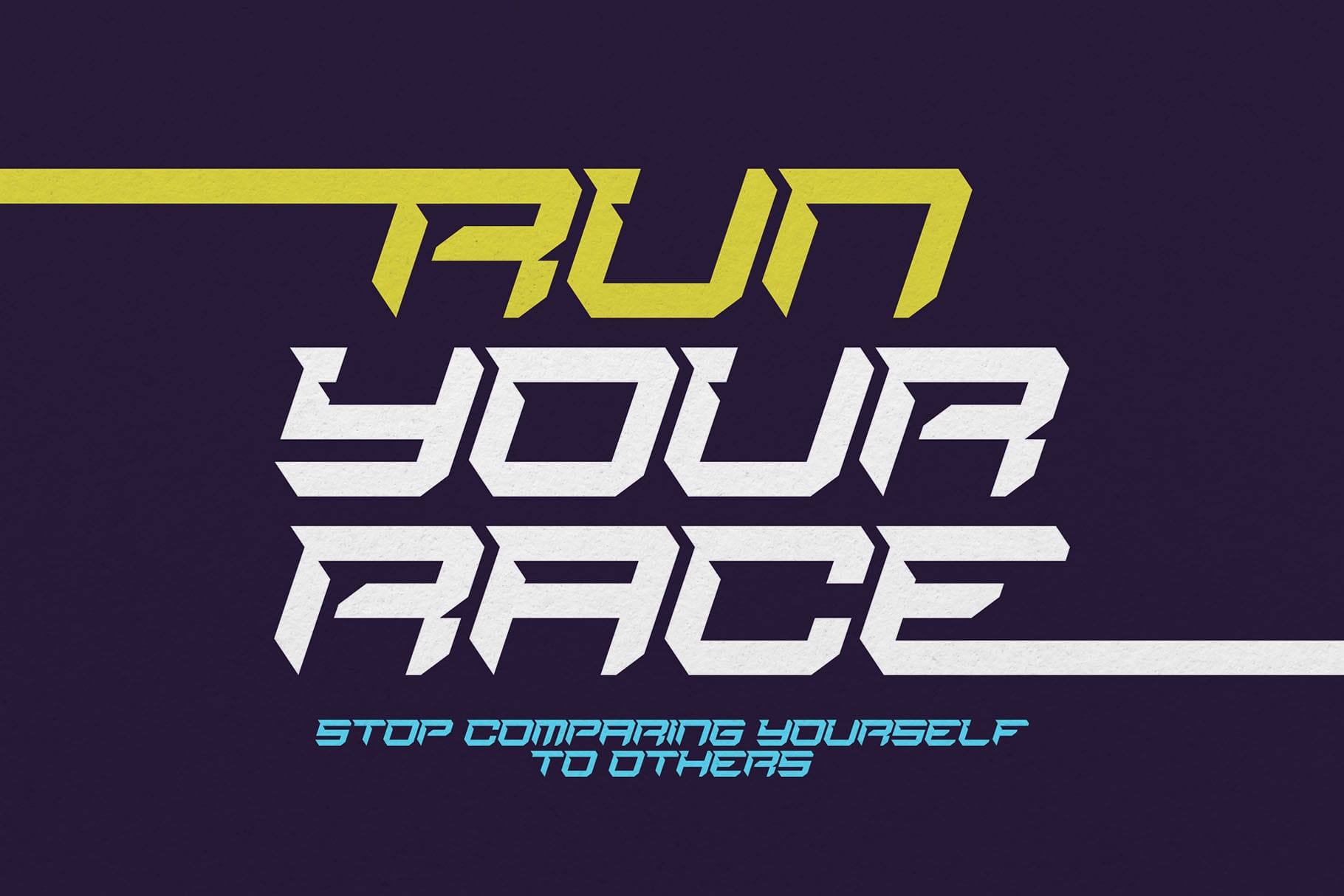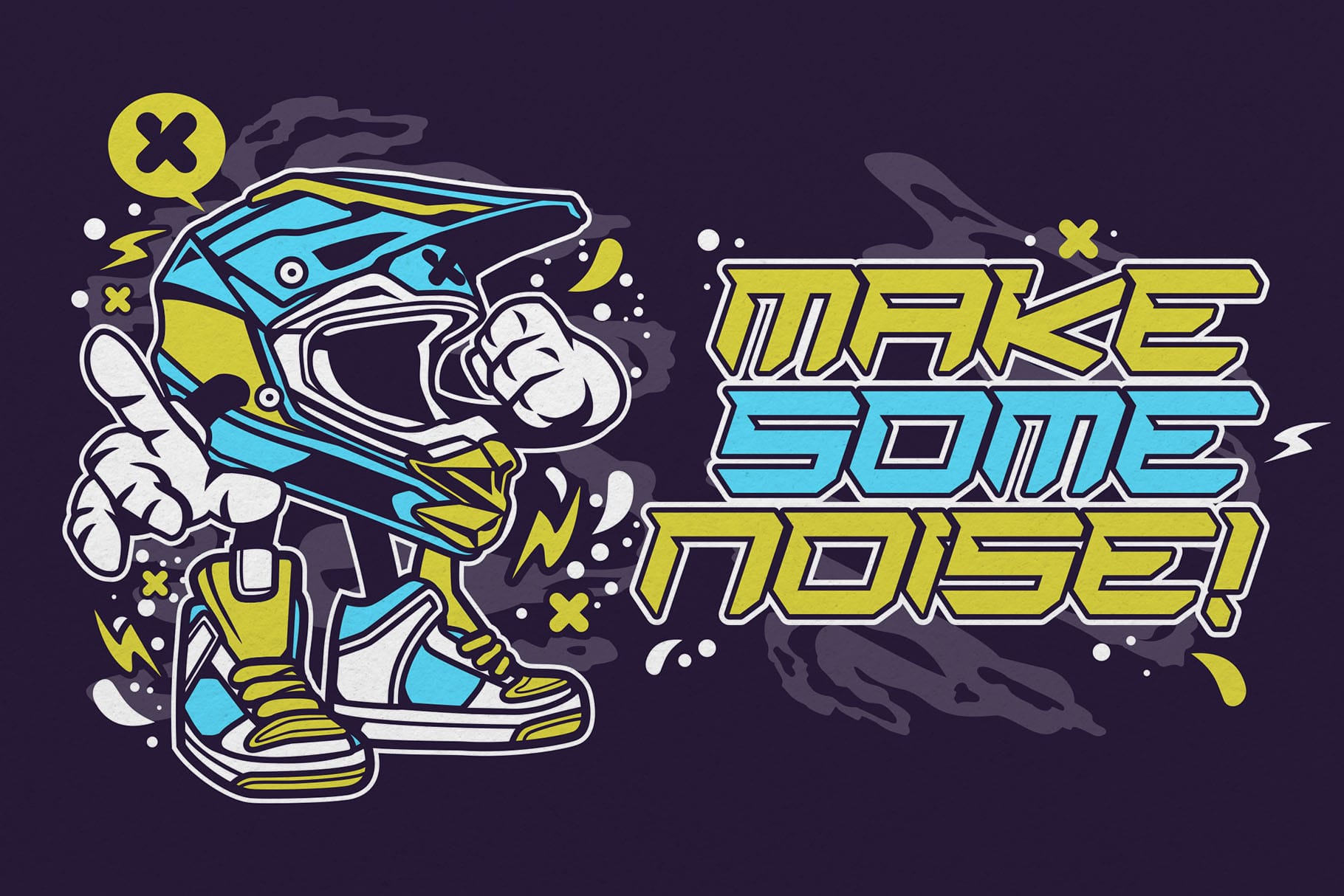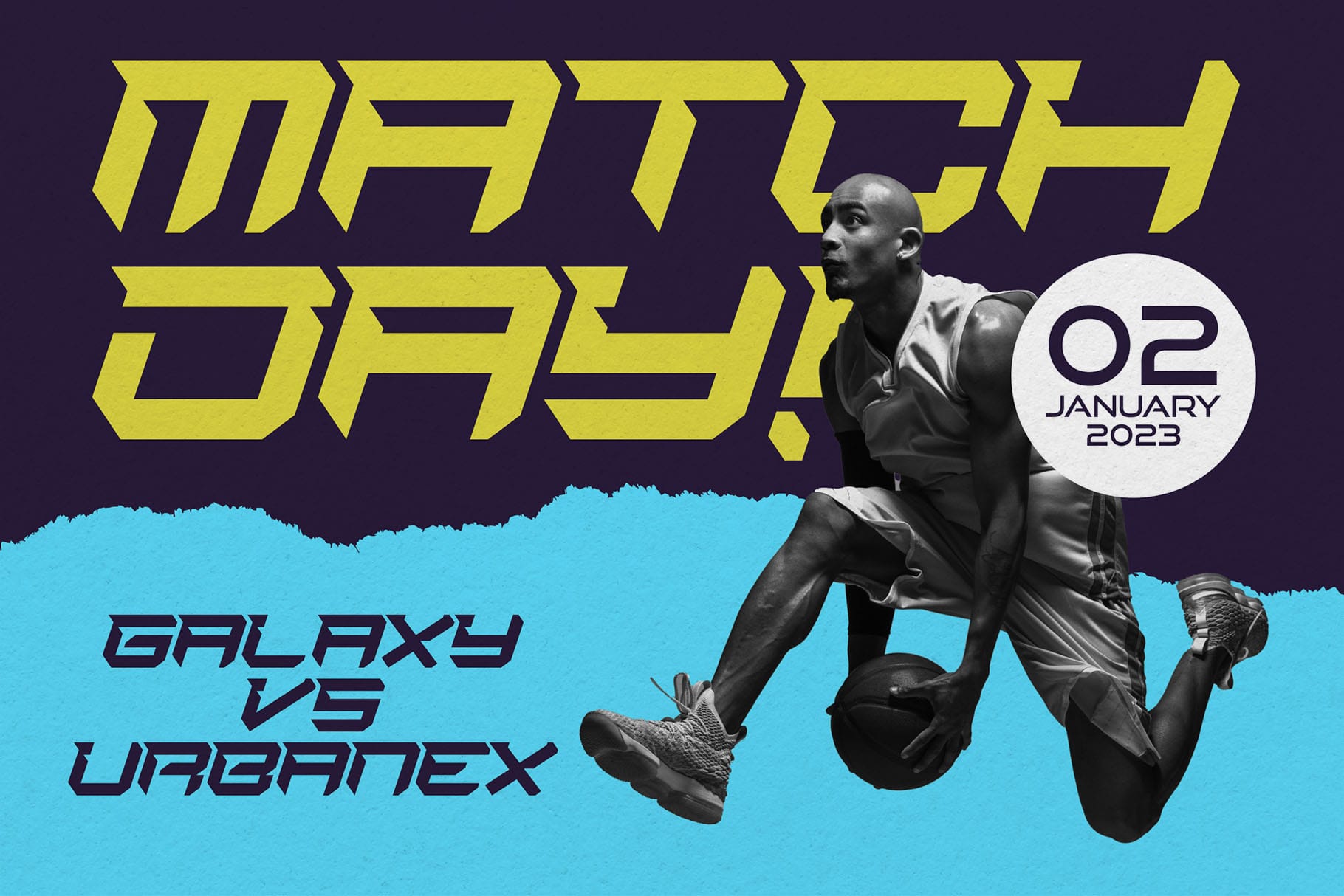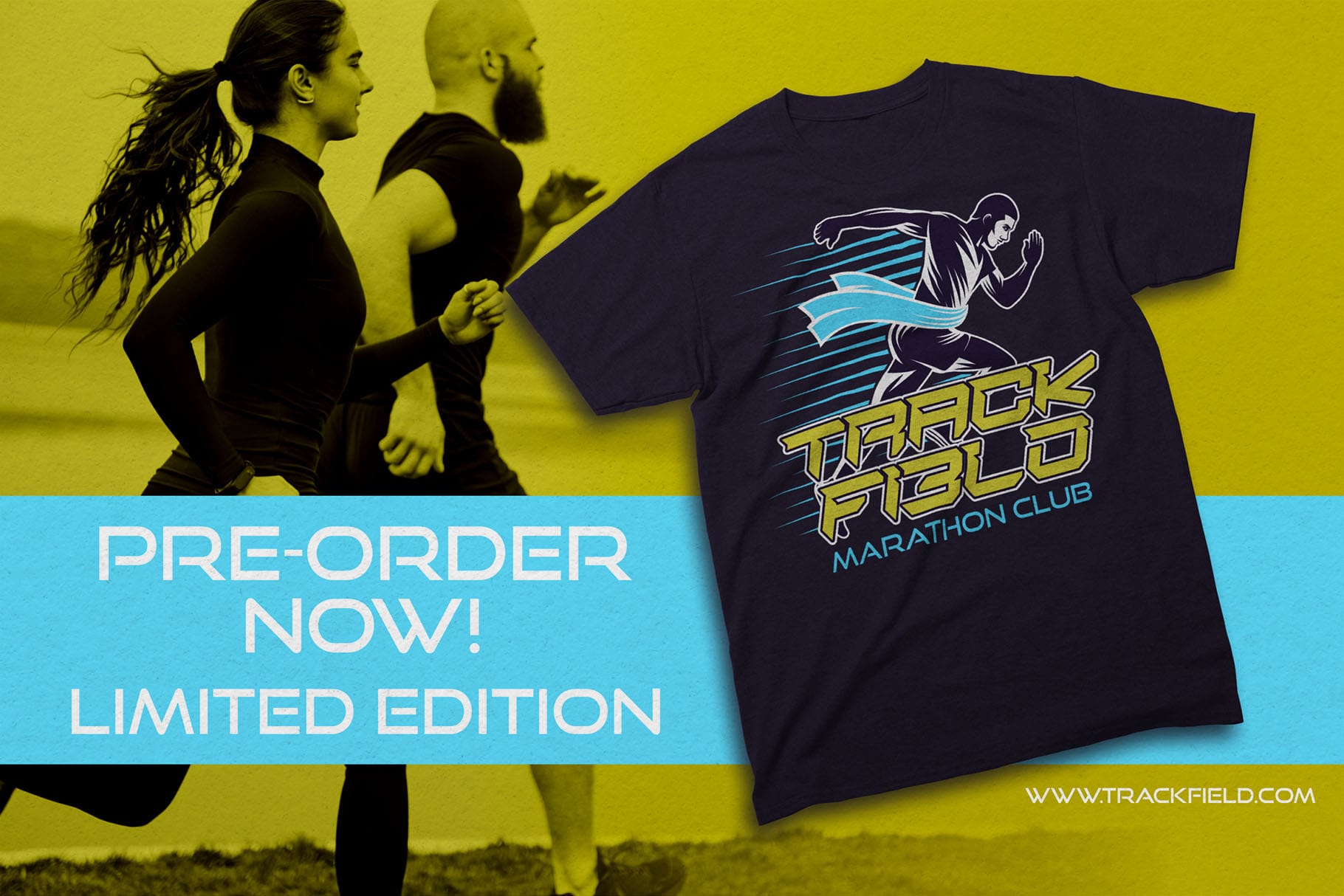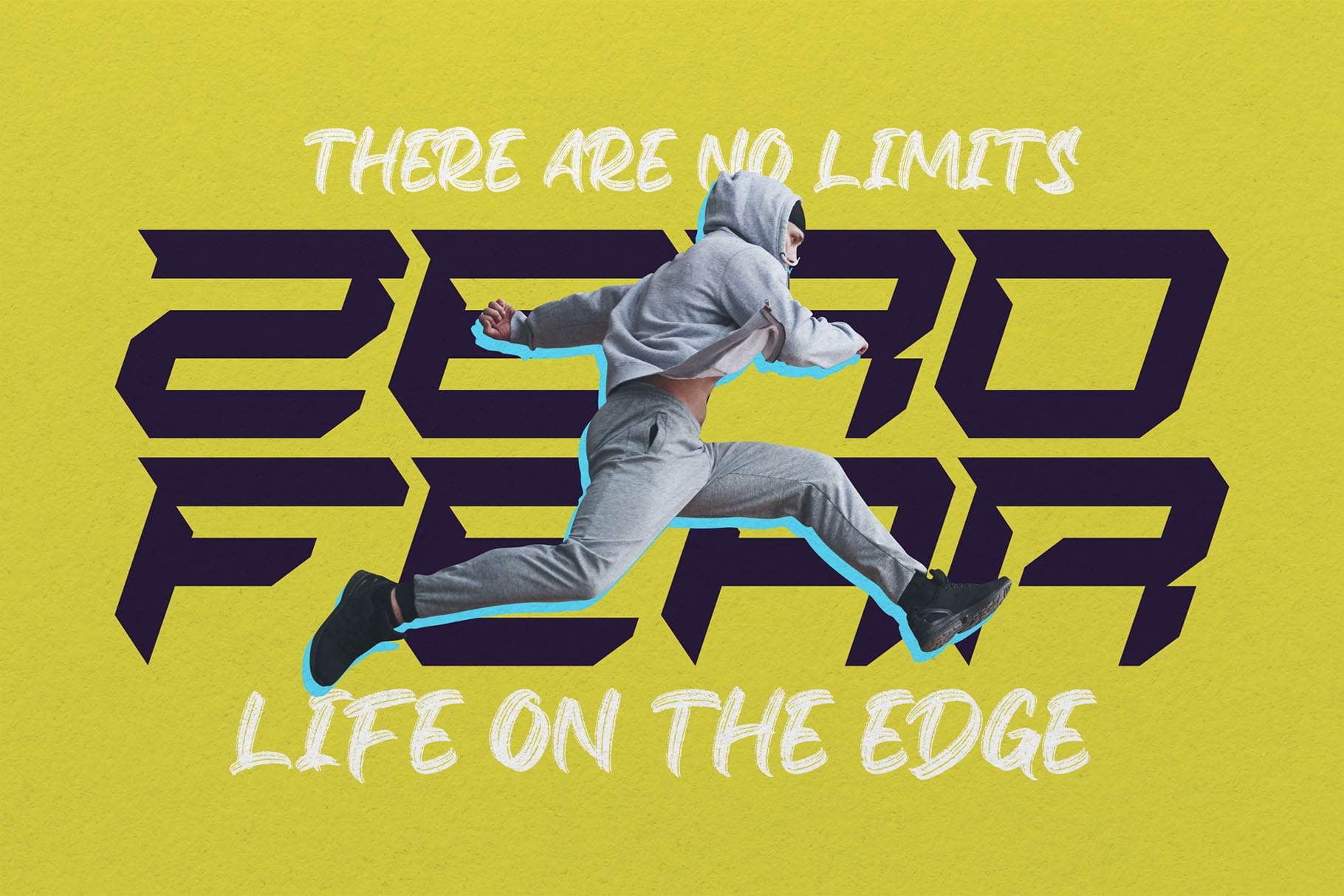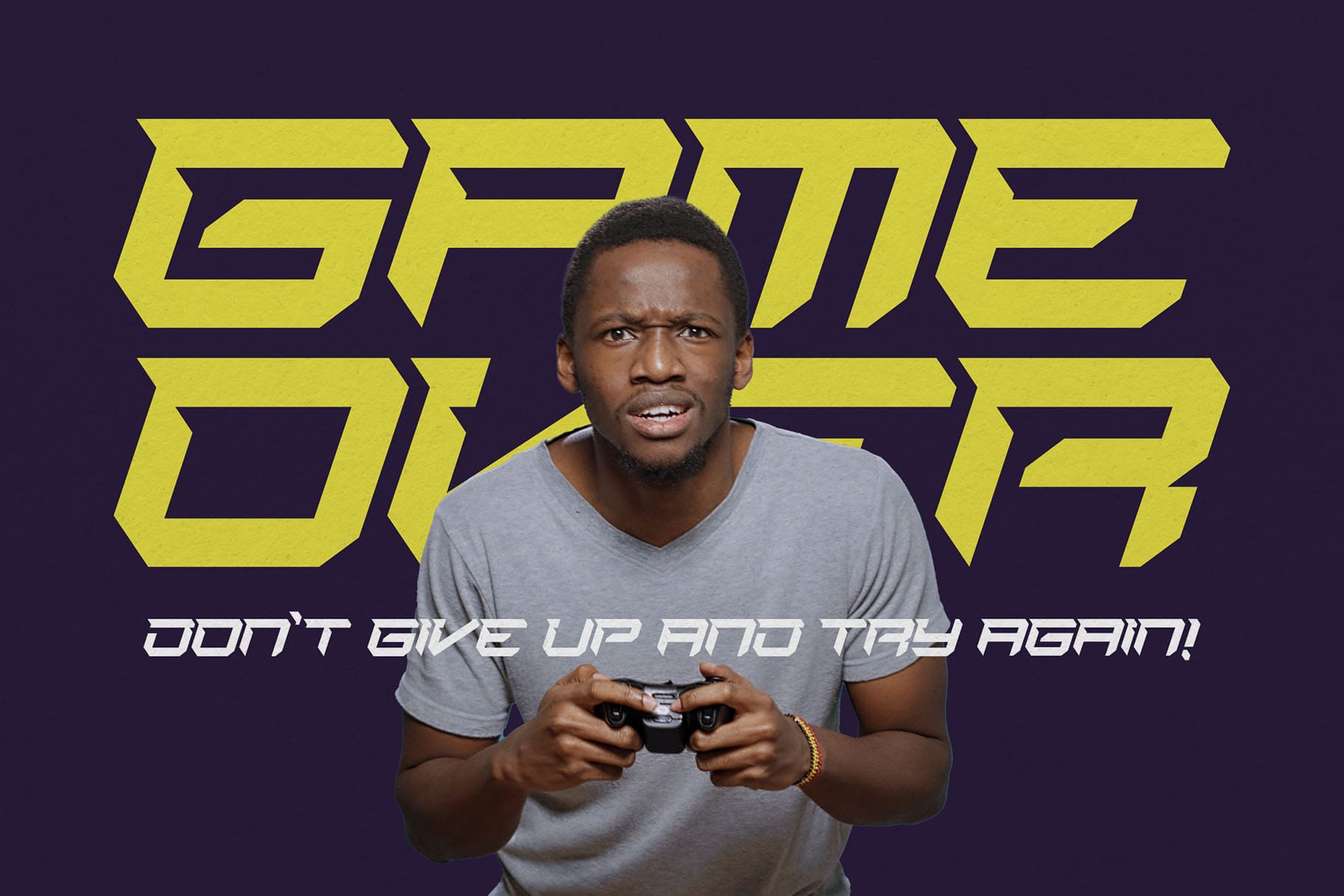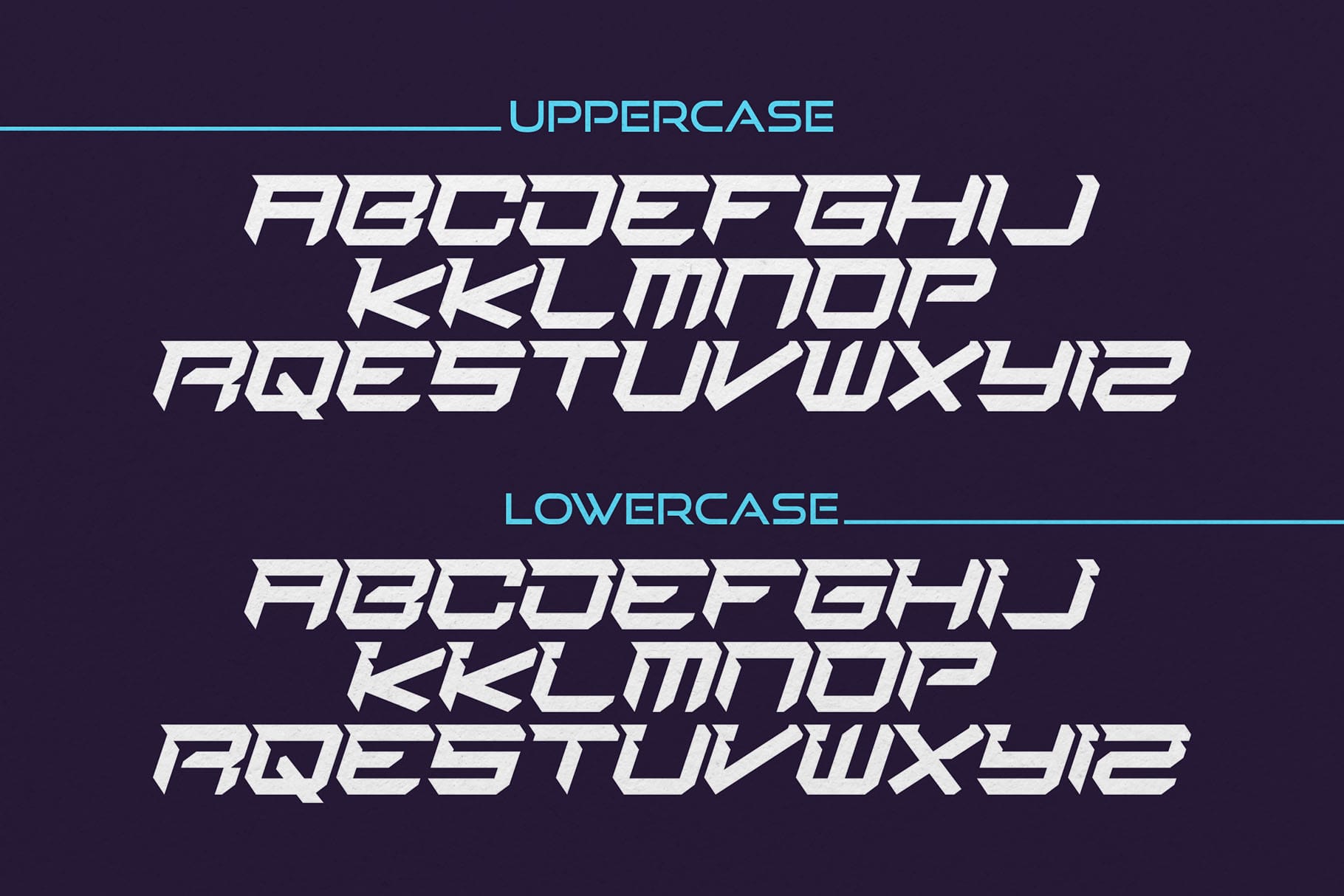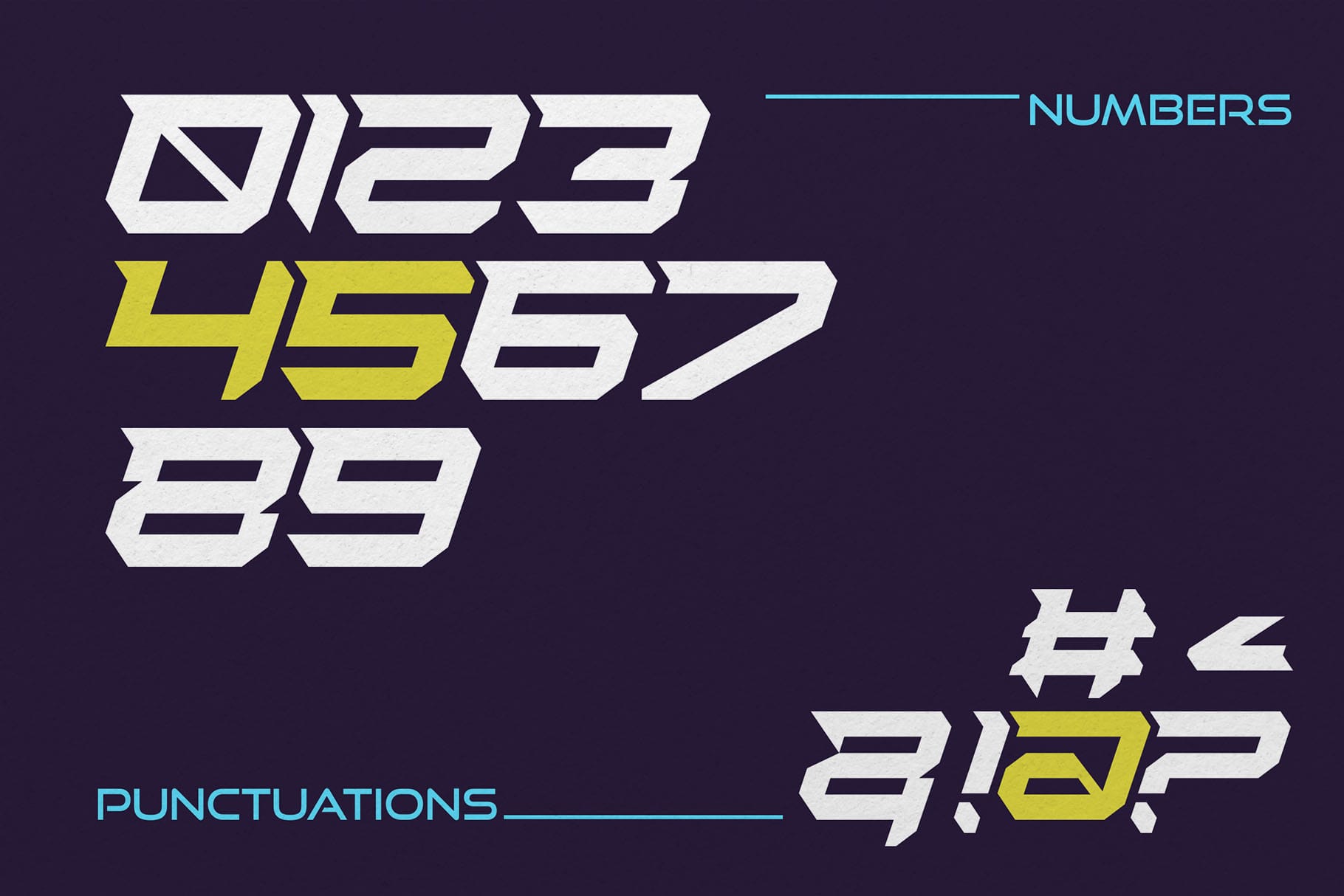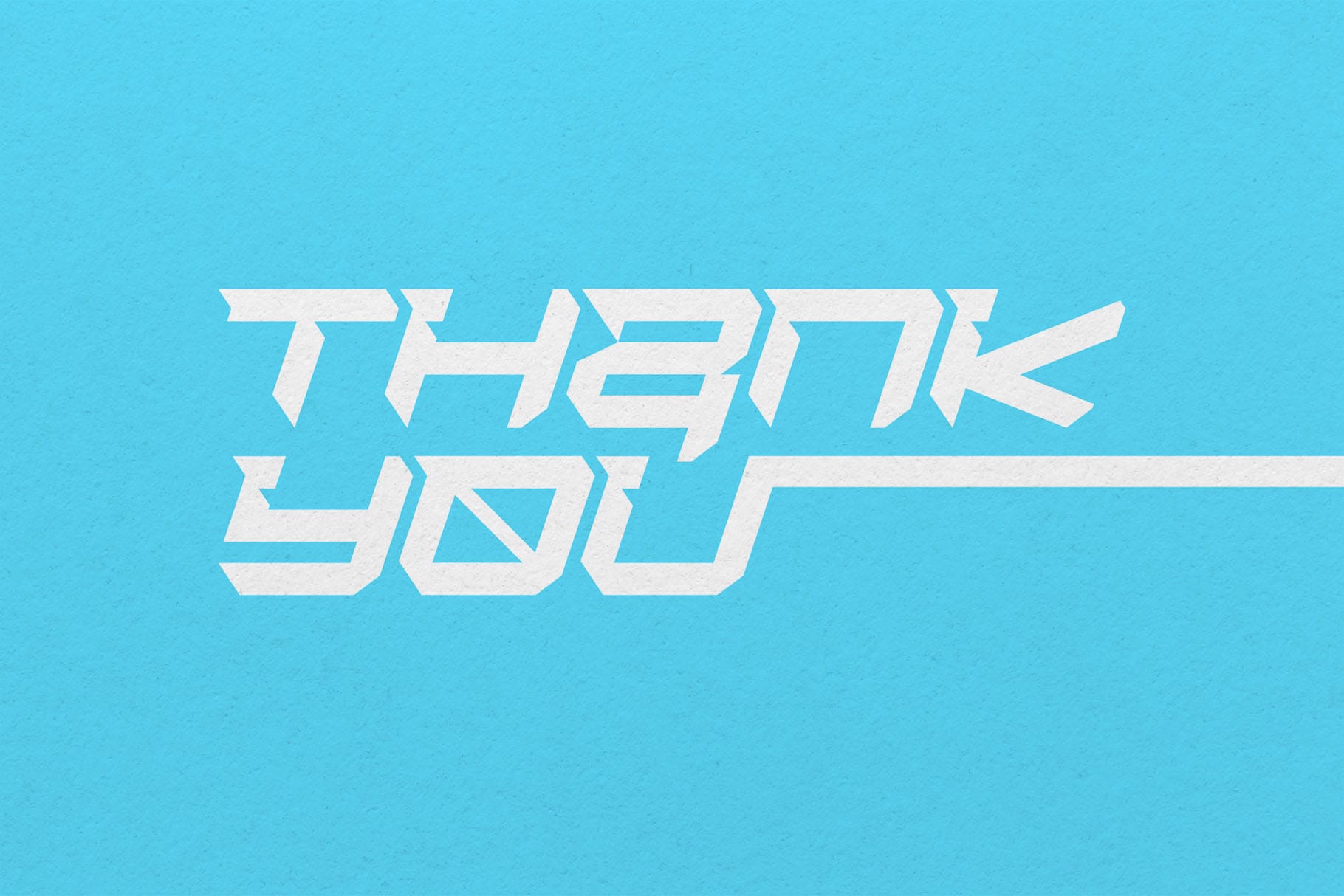
Aerobody is Powerful Racing Theme Font. The font is ready to be used for your racing sports or automotive-related projects.
Built to be perfect for headlines, jerseys, logos, branding, posters, packaging, advertising, and much more.